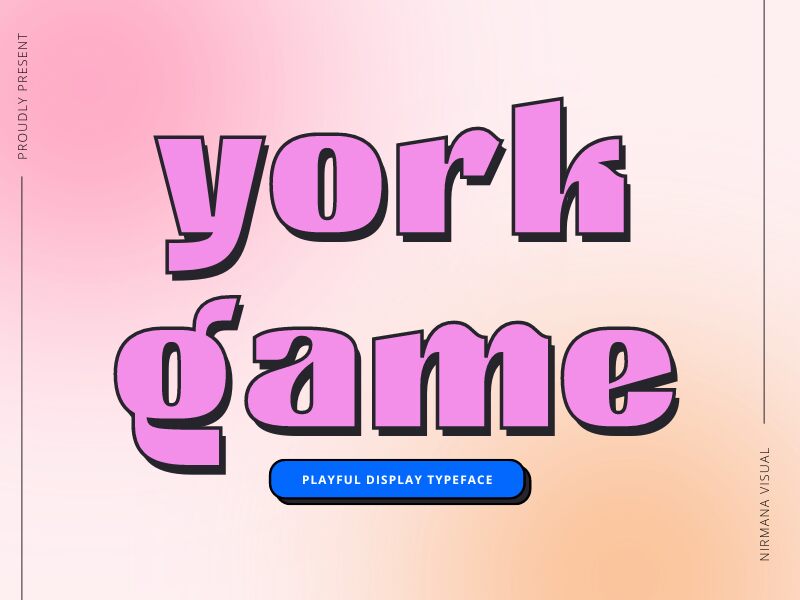
York Game Regular
York Game is a bold, retro-inspired display font that commands attention. Designed by Nirmana Visual, this striking typeface exudes a vintage charm with its robust letterforms and dramatic presence. The imposing, bold strokes create a sense of strength and solidity, lending themselves exceptionally well to eye-catching headers, logos, and branding applications.
The rugged, retro aesthetic of York Game makes it an ideal choice for projects seeking a bold, nostalgic flair - from vintage-inspired product packaging and event posters to game interfaces and album covers. Its versatility allows it to seamlessly integrate into a wide range of design contexts, from classic to contemporary, while consistently delivering a bold, attention-grabbing impact.